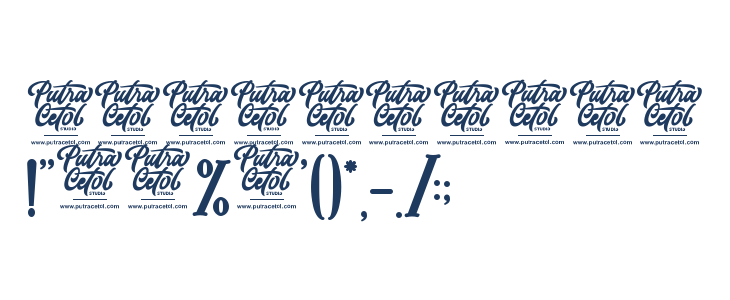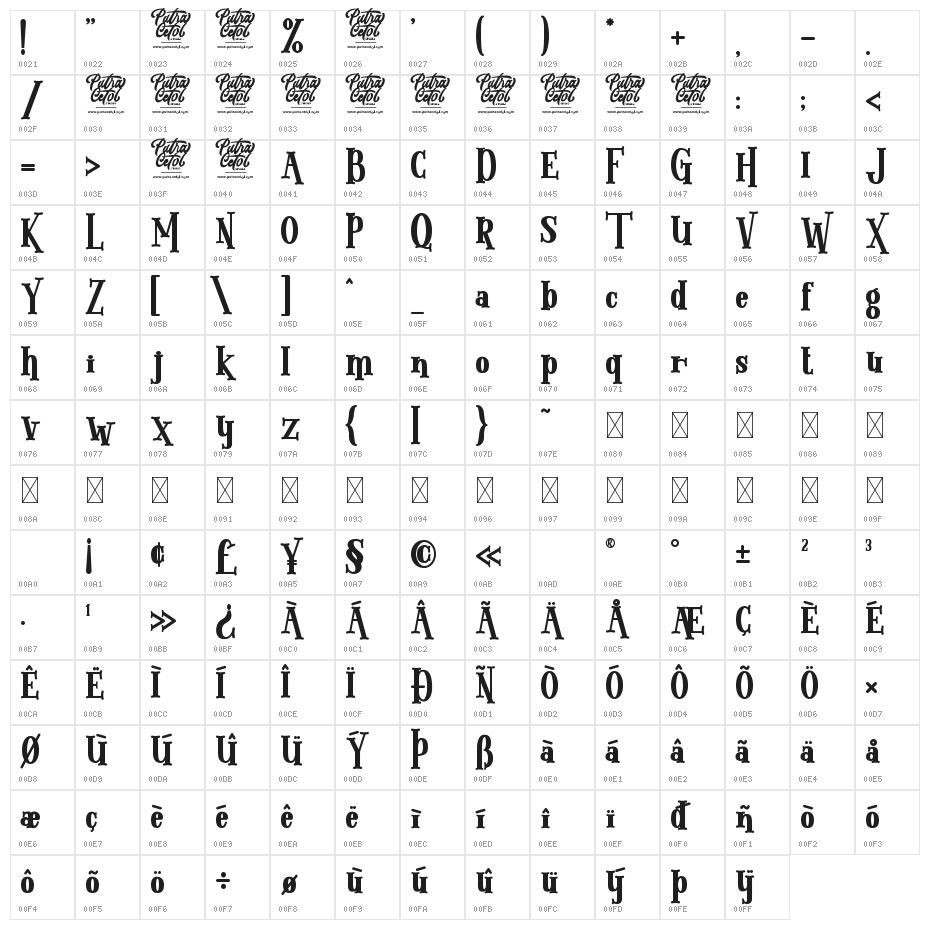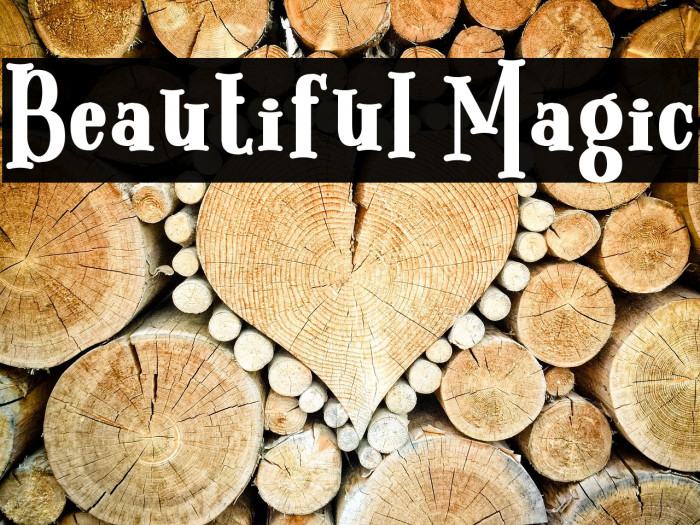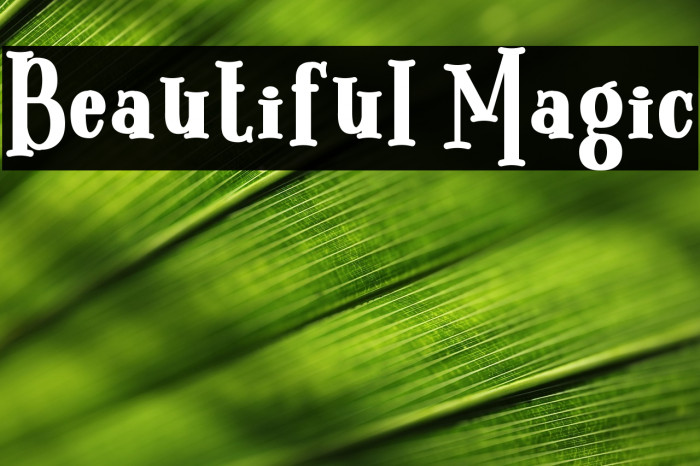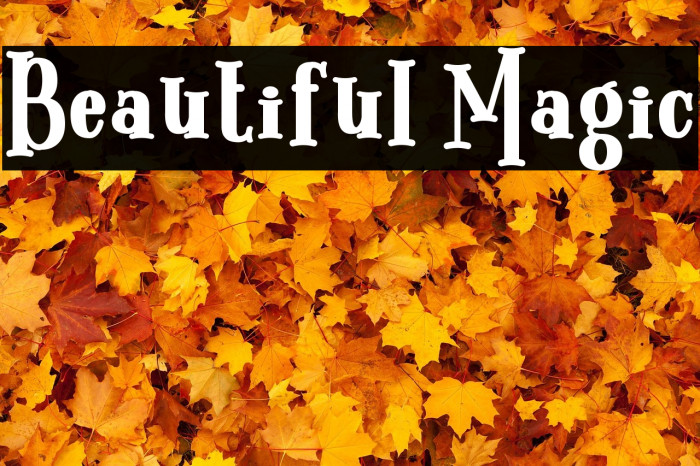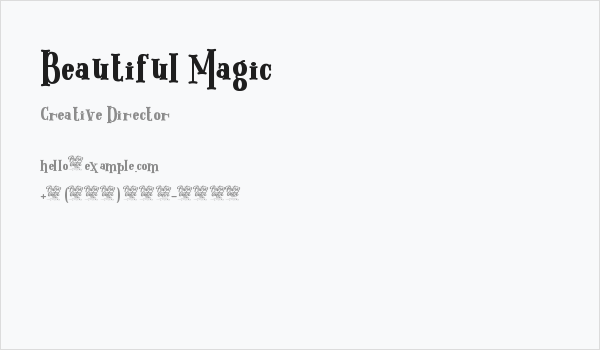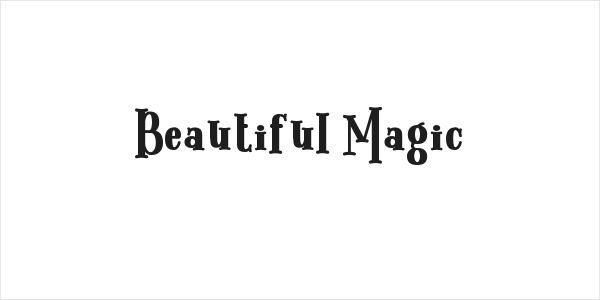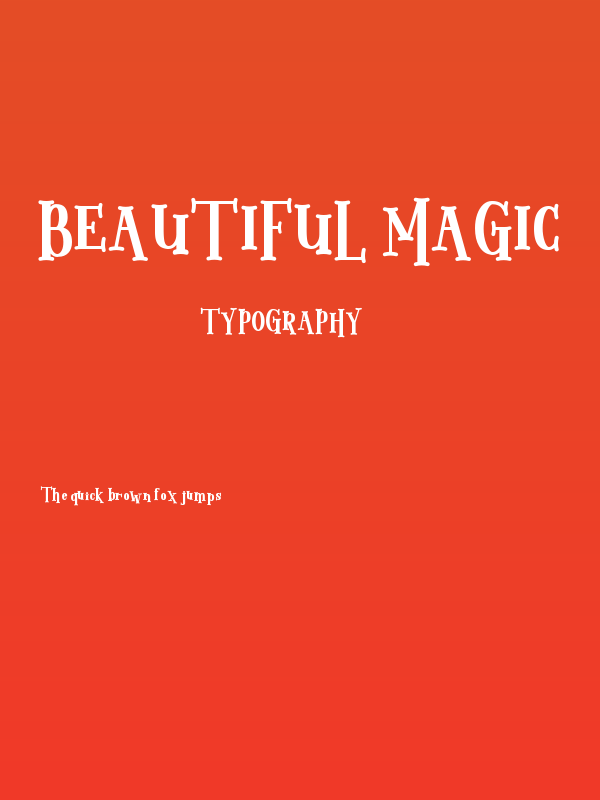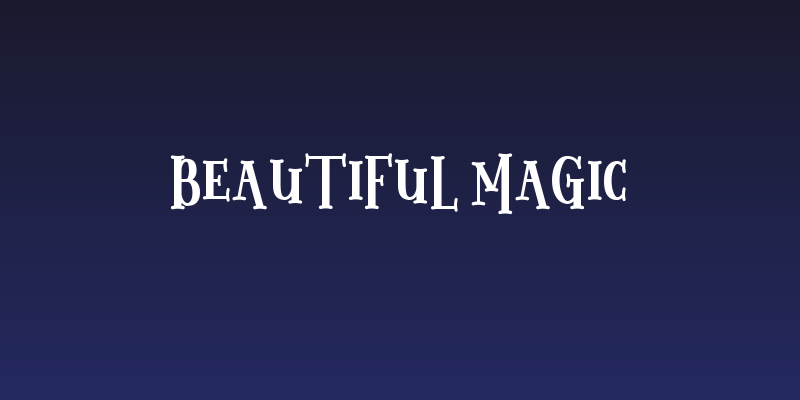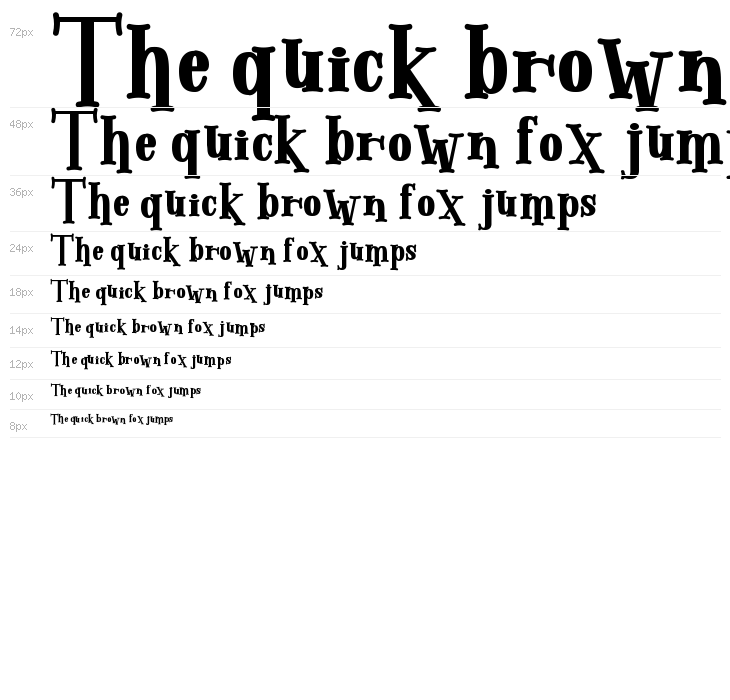
Beautiful Magic Font
Beautiful Magic Description
This font features a bold and playful design with a touch of vintage charm. The uppercase letters are tall and narrow, with slightly exaggerated serifs that add a whimsical flair. The lowercase letters maintain a consistent style, with rounded edges and a friendly appearance. The numbers and special characters follow the same playful aesthetic, making them suitable for a variety of creative projects. The overall look is both eye-catching and approachable, ideal for designs that require a touch of personality and uniqueness.
| Width | Condensed |
| Overall Style | Vintage |
| Proposed Projects | Ideal for posters, children's books, branding, and playful merchandise. |